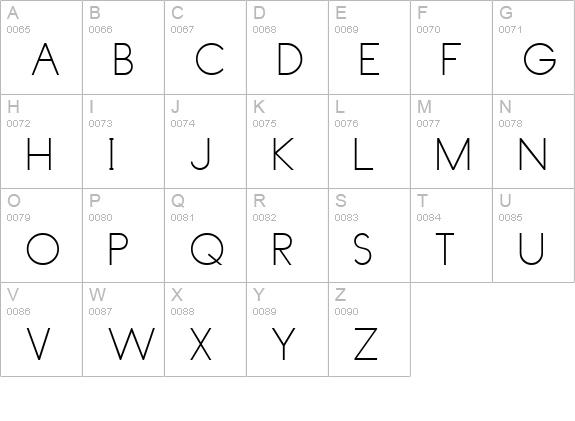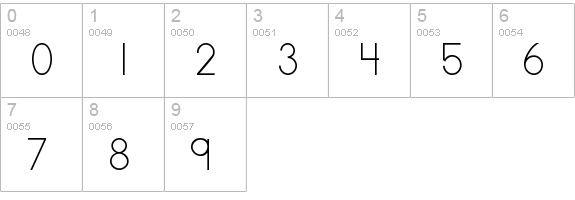
Introducing AbcPrint font - a versatile and modern typeface that combines elegance with readability. With its clean lines and stylish curves, AbcPrint is perfect for a wide range of design projects, from branding to editorial layouts. This font is not only visually appealing but also practical, making it suitable for both digital and print applications. Its bold yet sophisticated appearance ensures that your text will stand out and make a lasting impression on your audience. Best of all, AbcPrint is available for free download at FontsMarket.com. This means you can easily access this high-quality font for your projects without any cost. Don't miss out on this fantastic opportunity to enhance your designs with the timeless beauty of AbcPrint font. Download it today and let your creativity shine!